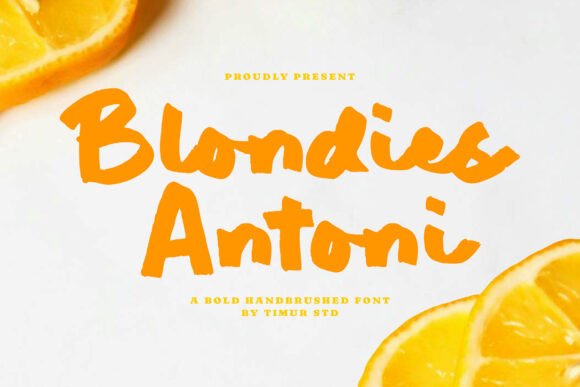
Discover the Bold and Beautiful Blondies Antoni Font
I’ll never forget the design struggle I faced while working on a project for a trendy coffee shop. My client wanted a bold, eye-catching logo that would stand out on their merchandise, but I was stuck on finding the perfect font. That’s when I stumbled upon Blondies Antoni, a bold hand-brushed display font that instantly caught my attention. Its textured strokes and dynamic shapes screamed energy and creativity, making it perfect for the project. In this article, I’ll share my experience with Blondies Antoni, its features, and how to make the most of it in your designs.
An Honest Review of Blondies Antoni
- ✨ Unique Texture: The hand-brushed texture gives Blondies Antoni a distinctive, organic feel that’s perfect for designs that need a personal touch.
- ✅ Modern and Artistic: The font’s modern, artistic flair makes it ideal for creative projects, such as posters, logos, and branding materials.
- 💡 Versatile: Despite its bold nature, Blondies Antoni can be used for a variety of designs, from playful to sophisticated.
While Blondies Antoni is an amazing font, there are a few things to keep in mind:
- 🤔 Legibility at Small Sizes: Due to its textured nature, Blondies Antoni can become less legible at small font sizes. It’s best used at larger sizes where its unique texture can shine.
- ⚠️ Overuse: As with any bold font, it’s easy to overuse Blondies Antoni. Make sure to balance it with simpler fonts to maintain visual hierarchy.
The Designer Inspiration Behind Blondies Antoni
Blondies Antoni was created with the intention of capturing the essence of modern artistry. Its designer aimed to craft a font that would evoke energy, creativity, and a sense of playfulness. The result is a bold, hand-brushed font that’s perfect for designs that need a unique touch.
Q: What type of designs is Blondies Antoni best suited for?
A: Blondies Antoni is ideal for eye-catching designs like posters, logos, branding materials, and any project that requires a bold, artistic flair.
Q: Is Blondies Antoni difficult to read?
A: While Blondies Antoni is a bold font, its textured nature can make it less legible at small sizes. It’s best used at larger sizes where its unique texture can shine.